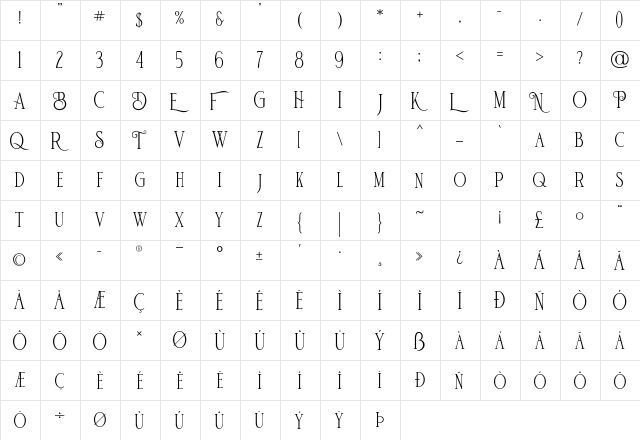
De Bambeet Regular
| Designer | zamjump studio |
De Bambeet is a composed and adaptable typeface that performs quietly and consistently across a wide range of design contexts.